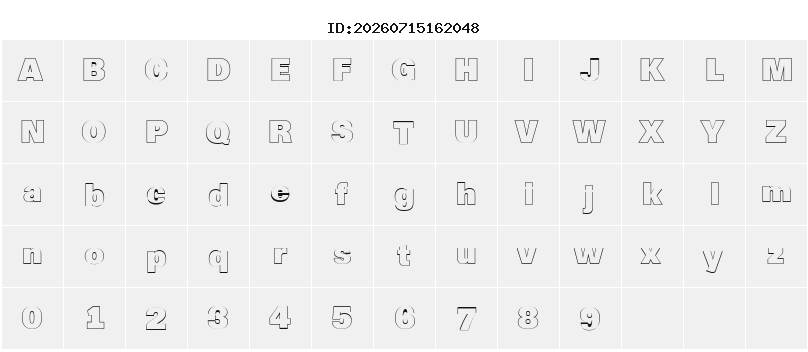
• Font Name: a_ReportSansOtl
• Designer: W.Chufarofsky & M.Slutsker
About a_ReportSansOtl.ttf
a_ReportSansOtl.ttf is a modern, elegant sans-serif font designed for ultimate readability and visual harmony. Perfect for branding, headlines, web design, and print materials.